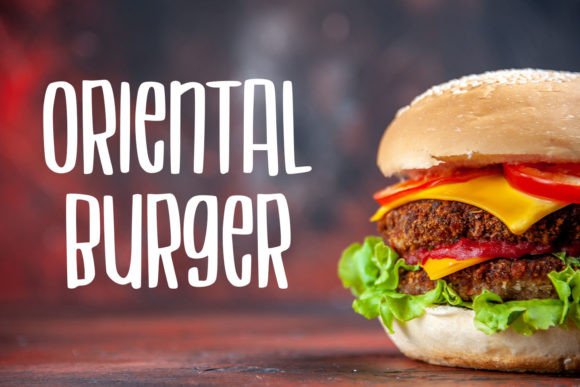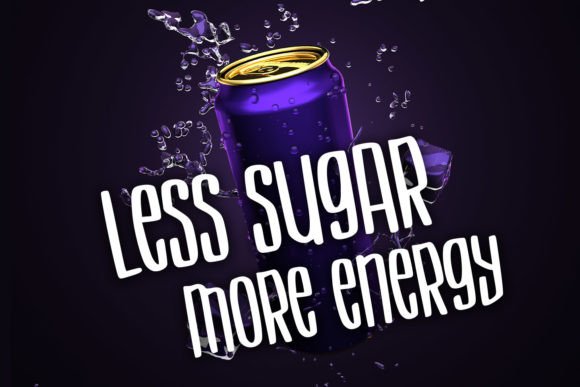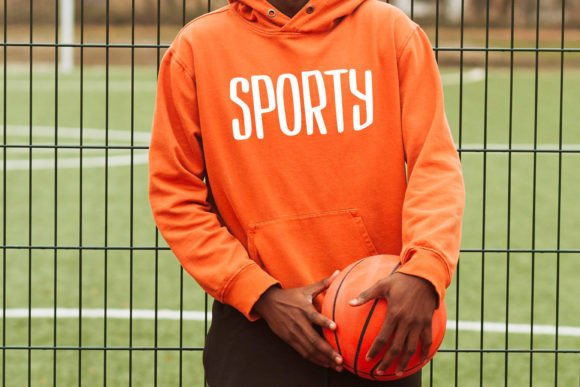
Introduction to Mojito Lemon Font
Mojito Lemon is a childish, easy-to-read display font that conveys impeccable friendliness.
Key Features of Mojito Lemon Font